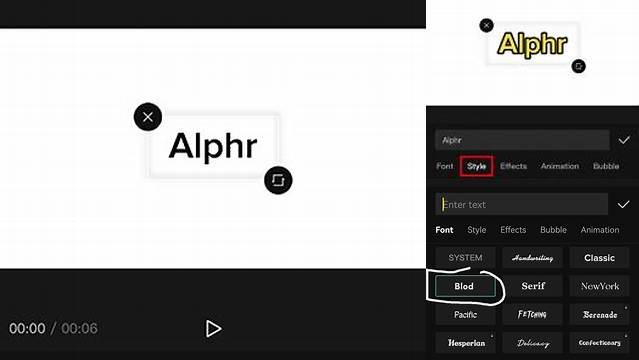
How To Change Fonts In CapCut: A Step-by-Step Guide
Hey guys! Ever wondered how to make your CapCut videos pop with some amazing fonts? You're in the right place! In this comprehensive guide, we'll dive deep into the world of CapCut fonts, exploring everything from the built-in options to importing your own custom fonts. Whether you're a seasoned video editor or just starting, mastering fonts is key to creating visually appealing and engaging content. So, let's get started and transform your videos from good to great with the power of typography!
Understanding the Importance of Fonts in Video Editing
First off, let's talk about why fonts matter so much in video editing. Think of fonts as the voice of your text. They convey emotion, personality, and style, just like a voice does in a conversation. Choosing the right font can significantly impact how your message is received. A playful, handwritten font might be perfect for a vlog, while a clean, sans-serif font might be better suited for a professional tutorial. The wrong font, on the other hand, can make your video look unprofessional or even confusing. It's like wearing a tuxedo to a beach party β it just doesn't fit the vibe! So, paying attention to your font choices is crucial for creating a polished and effective video. When you nail the font, you not only enhance the visual appeal but also reinforce the message you're trying to convey. For instance, a bold, impactful font can emphasize a key point, while a delicate, elegant font can add a touch of sophistication. Itβs all about aligning the font with the tone and theme of your video. This is why understanding the nuances of typography is such a valuable skill for any video editor. Experimenting with different fonts and seeing how they interact with your visuals can be a fun and rewarding process, leading to more creative and engaging videos. Remember, the goal is to create a harmonious blend of visuals and text, where the font complements the overall aesthetic and helps tell your story more effectively. So, take your time, explore your options, and don't be afraid to try something new! The right font can truly elevate your video and make it stand out from the crowd.
Exploring CapCut's Built-In Font Library
CapCut comes packed with a fantastic library of fonts, ready for you to use right away. This is where most people start, and it's a great place to explore the basics of typography in video editing. Navigating the font library is super easy. Once you've added a text layer to your project, you'll see a font selection menu. Here, you can scroll through a wide range of options, from classic serifs to modern sans-serifs, and even some fun, decorative fonts. CapCut organizes these fonts into categories, making it easier to find what you're looking for. You can preview each font in real-time, so you can see how it looks with your text before committing to it. This is a huge time-saver and allows you to quickly experiment with different styles. The built-in fonts cover a broad spectrum of styles, ensuring you have something suitable for almost any project. Whether you need a clean and professional font for a business presentation or a quirky and playful font for a social media video, CapCut has you covered. But the real magic happens when you start experimenting with different combinations of fonts, sizes, and colors. Don't be afraid to mix and match to create a unique visual identity for your videos. Remember, the goal is to find fonts that not only look good but also communicate the tone and message of your video effectively. So, take some time to browse through the built-in library, try out different options, and discover the fonts that resonate with your personal style and the needs of your projects. You might be surprised at the variety and quality of fonts available right at your fingertips!
Step-by-Step Guide: Changing Fonts in CapCut
Okay, let's get down to the nitty-gritty. Here's a step-by-step guide on how to change fonts in CapCut, making it super easy for you to customize your text. First things first, open up CapCut and start a new project or open an existing one. Once you're in the editing interface, you'll want to add a text layer. You can do this by tapping the "Text" icon at the bottom of the screen and then selecting "Add Text". A text box will appear on your video, and you can type in whatever you want. Now, for the fun part β changing the font! With the text layer selected, you'll see a toolbar appear with various editing options. Look for the "Font" option, which usually has a little "A" icon. Tap on that, and you'll be taken to CapCut's font library. Here, you can scroll through the list of available fonts and preview them in real-time. When you find a font you like, simply tap on it to apply it to your text. You can also adjust the font size, style (bold, italic, etc.), and color using the other options in the toolbar. Experiment with different combinations to achieve the perfect look for your text. CapCut also allows you to adjust the text's position, rotation, and opacity, giving you even more control over how it appears in your video. If you want to use a font that's not in CapCut's built-in library, don't worry β we'll cover how to import custom fonts later in this guide. But for now, focus on exploring the fonts that are readily available. Practice changing fonts, adjusting sizes, and playing with styles to get a feel for how different fonts can impact the look and feel of your video. With a little experimentation, you'll become a font-changing pro in no time!
Importing and Using Custom Fonts in CapCut
Now, let's talk about taking your font game to the next level: importing and using custom fonts in CapCut. This is where things get really exciting because you're no longer limited to the built-in options. You can bring in your own unique fonts to truly personalize your videos. So, how do you do it? First, you'll need to find some custom fonts. There are tons of websites out there that offer free and premium fonts, like Google Fonts, DaFont, and Font Squirrel. Once you've found a font you love, download it to your device. Make sure the font file is in a compatible format, such as TTF or OTF. Next, open CapCut and go to the text editing interface. Select the text layer you want to change and tap on the "Font" option. You should see an "Import Font" button or a similar option, usually indicated by a plus (+) icon. Tap on that, and CapCut will prompt you to locate the font file on your device. Navigate to the folder where you saved the font and select it. CapCut will then import the font, and it will appear in your font library, ready to use. It's as simple as that! Now you can use your custom font just like any other font in CapCut. You can adjust its size, style, and color to match your video's aesthetic. Importing custom fonts opens up a whole new world of creative possibilities. You can use fonts that perfectly match your brand, your personal style, or the specific theme of your video. This is a great way to make your videos stand out and create a consistent visual identity across all your content. Remember to respect font licenses when using custom fonts. Some fonts are free for personal use but require a license for commercial use. Always check the terms of use before using a font in your projects. With the ability to import custom fonts, CapCut becomes an even more powerful tool for video editing. So, go ahead, explore the world of typography, and find the perfect fonts to bring your videos to life!
Tips for Choosing the Right Font for Your Video
Choosing the right font can feel like a big decision, but don't worry, we've got some tips to help you nail it every time. Think of your font as a visual representation of your message. It should complement the tone and style of your video. For example, if you're creating a fun, upbeat vlog, a playful, handwritten font might be a great choice. On the other hand, if you're making a professional tutorial, a clean, sans-serif font will convey a sense of authority and clarity. Consider your audience. Who are you trying to reach with your video? Different audiences may respond better to different font styles. A younger audience might appreciate trendy, modern fonts, while an older audience might prefer classic, easy-to-read fonts. Think about readability. No matter how stylish a font is, if it's difficult to read, it's not a good choice for your video. Choose fonts that are clear and legible, even at smaller sizes. Avoid fonts with overly intricate details or thin lines, as these can be hard to read on a screen. Pay attention to contrast. Make sure your text has enough contrast with the background. If your background is busy or colorful, use a font color that stands out. A good rule of thumb is to use light text on a dark background or dark text on a light background. Don't be afraid to experiment. Try out different fonts and see what works best for your video. CapCut makes it easy to preview fonts, so take advantage of this feature. You can also mix and match fonts to create visual interest, but be careful not to use too many different fonts in one video, as this can look cluttered and unprofessional. Stick to two or three fonts at most. And finally, trust your instincts. If a font feels right for your video, it probably is. So, go ahead, explore your options, and have fun with it! Choosing the right font is an important part of video editing, but it's also an opportunity to express your creativity and personality.
Advanced Font Editing Techniques in CapCut
Alright, let's dive into some advanced font editing techniques in CapCut that can really make your text stand out. We're talking about going beyond just changing the font and exploring features like text styles, shadows, and animations. One of the coolest features in CapCut is the ability to add text styles. These are pre-designed text effects that can instantly transform the look of your text. You can find them in the "Style" section of the text editing toolbar. There are styles for every occasion, from bold and modern to elegant and vintage. Experiment with different styles to see which ones complement your video. Shadows are another great way to enhance your text. Adding a subtle shadow can make your text pop off the screen and improve readability. CapCut allows you to customize the shadow's color, opacity, and distance, giving you precise control over the effect. Text animations are where things get really exciting. CapCut offers a wide range of animations that can bring your text to life. You can make your text fade in, slide in, bounce, or even spin onto the screen. Animations can add a dynamic and engaging element to your videos, but it's important to use them sparingly. Overusing animations can be distracting and make your video look unprofessional. Use them strategically to highlight key points or add visual interest. Another advanced technique is kerning and tracking. Kerning refers to the spacing between individual letters, while tracking refers to the overall spacing between all letters in a word or phrase. Adjusting these settings can fine-tune the appearance of your text and improve readability. CapCut may not have dedicated kerning and tracking controls, but you can achieve similar effects by manually adjusting the spacing between text layers. Finally, consider using masking to create unique text effects. Masking allows you to reveal or hide parts of your text using different shapes or videos. This can create some really cool visual effects, like text that appears to be written on a wall or text that reveals a background scene. These advanced font editing techniques can take your videos to the next level. They allow you to create text that is not only readable but also visually stunning and engaging. So, don't be afraid to experiment and push the boundaries of what's possible with CapCut's text editing tools!
Troubleshooting Common Font Issues in CapCut
Even with all the awesome features CapCut offers, you might run into some font issues from time to time. But don't worry, we're here to help you troubleshoot those problems and get your text looking perfect. One common issue is that a custom font you've imported doesn't appear in CapCut. This usually happens if the font file is not in a compatible format or if it's corrupted. Make sure the font file is a TTF or OTF file, as these are the most common formats supported by CapCut. If you've downloaded the font from a website, try downloading it again, as the original file might have been corrupted during the download process. Another issue you might encounter is that the font appears blurry or pixelated in your video. This can happen if the font size is too large or if the text is scaled up too much. Try reducing the font size or using a different font that is more legible at larger sizes. If you're using a custom font, it might not be optimized for screen display. In this case, try using a different font or contacting the font's creator for assistance. Sometimes, CapCut might display a font differently than it appears in other applications. This can be due to differences in font rendering engines. If you notice discrepancies, try exporting a test video to see how the font looks in the final output. You can also try clearing CapCut's cache and restarting the app, as this can sometimes resolve font-related issues. If you're still having problems, check CapCut's help resources or online forums for solutions. Other users might have encountered the same issue and found a workaround. And finally, remember that not all fonts are created equal. Some fonts are simply better designed than others. If you're consistently having problems with a particular font, it might be best to avoid using it in your projects. By following these troubleshooting tips, you can overcome most common font issues in CapCut and ensure that your text always looks its best. So, don't let font problems hold you back from creating amazing videos!
So, there you have it! You're now equipped with the knowledge to master fonts in CapCut. From understanding the importance of typography to importing custom fonts and troubleshooting common issues, you've learned everything you need to create visually stunning text for your videos. Remember, fonts are a powerful tool for conveying emotion, personality, and style. Choosing the right font can elevate your videos and make them more engaging for your audience. Don't be afraid to experiment with different fonts and techniques to find what works best for you. CapCut offers a wide range of options, so the possibilities are endless. Whether you're creating vlogs, tutorials, or social media content, mastering fonts will help you stand out from the crowd. So, go ahead, unleash your creativity, and transform your videos with the power of typography! Happy editing, guys!